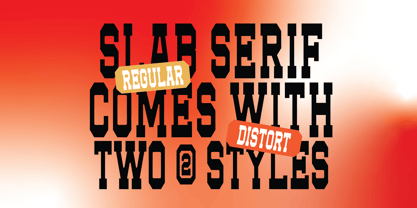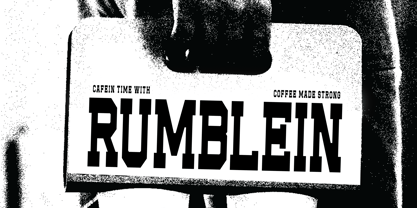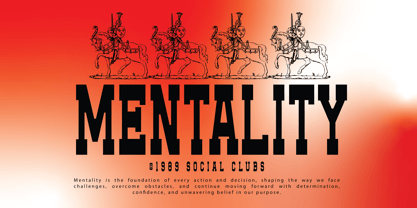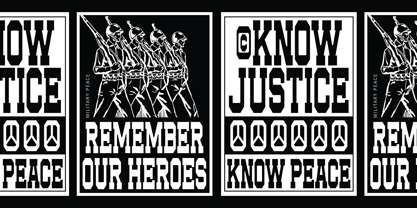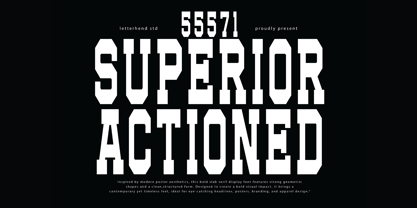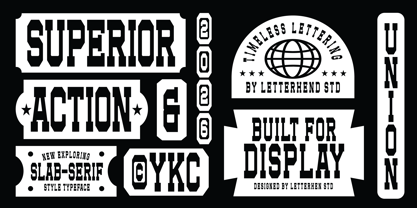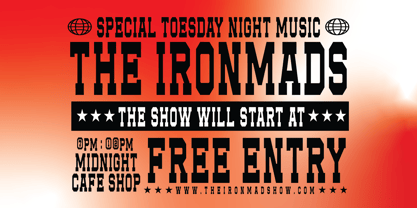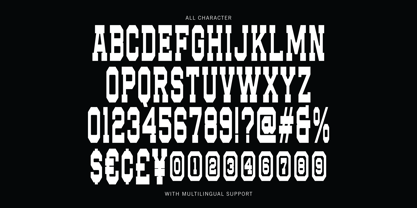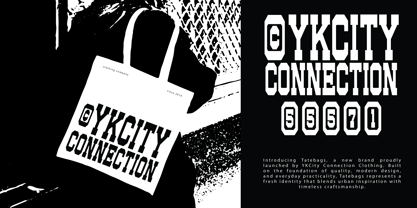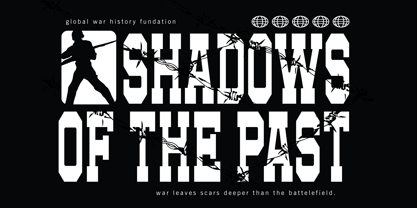
Superior Actioned
by Letterhend
The Superior Actioned Font Family was designed by Hendry Juanda and published by Letterhend. Superior Actioned contains 2 styles and family package options. More about this family
Superior Actioned comes in loud and steady—big, bold slab serif shapes with that no-nonsense, poster-ready punch. The letters feel solid like stamped metal, sharp on the edges yet clean in structure, giving off a strong, sporty, vintage-industrial vibe. Built to stand tall on headlines, logos, posters, and branding, this font delivers instant impact with a confident rhythm that feels both classic and fresh. Features : Uppercase & lowercase Numbers and punctuation Multilingual Support PUA encoded
Designers: Hendry Juanda
Foundry: Letterhend